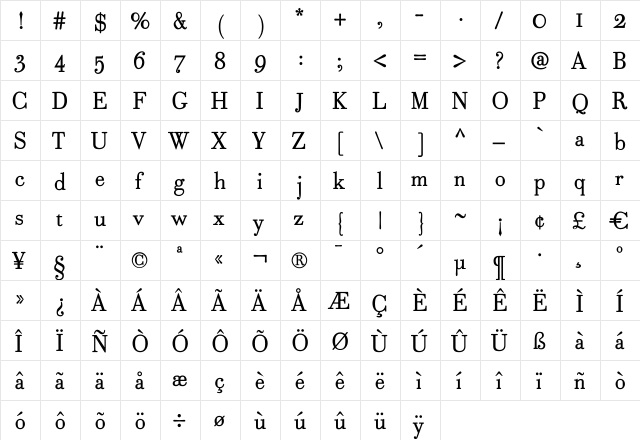
Robusta Light Regular
Design Context for Robusta Light Typeface
Robusta Light is a composed and adaptable typeface that performs quietly and consistently across a wide range of design contexts. The delicate stroke weight brings airiness and refinement to layouts.